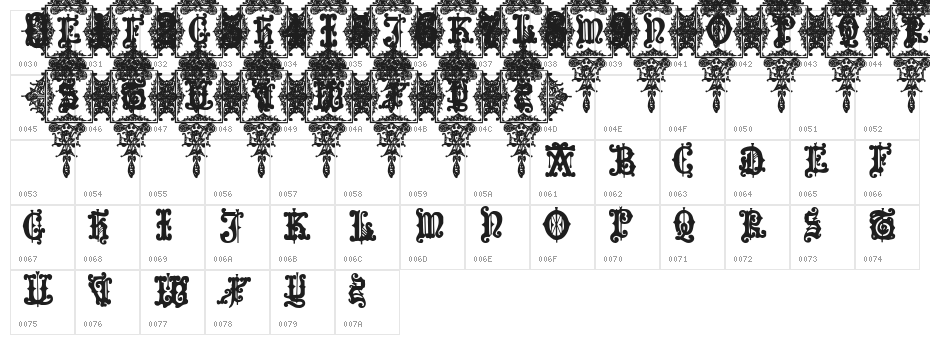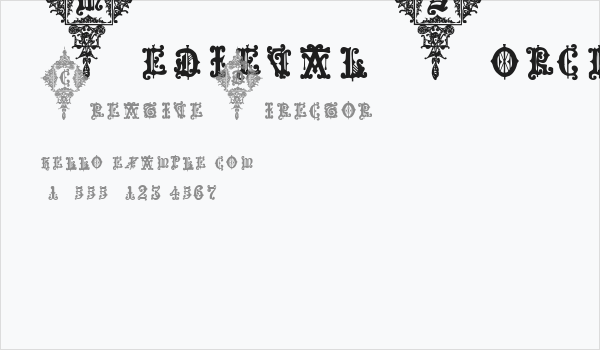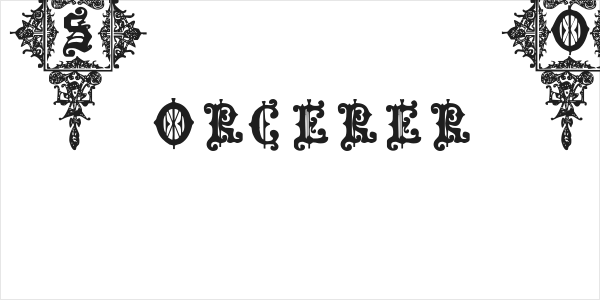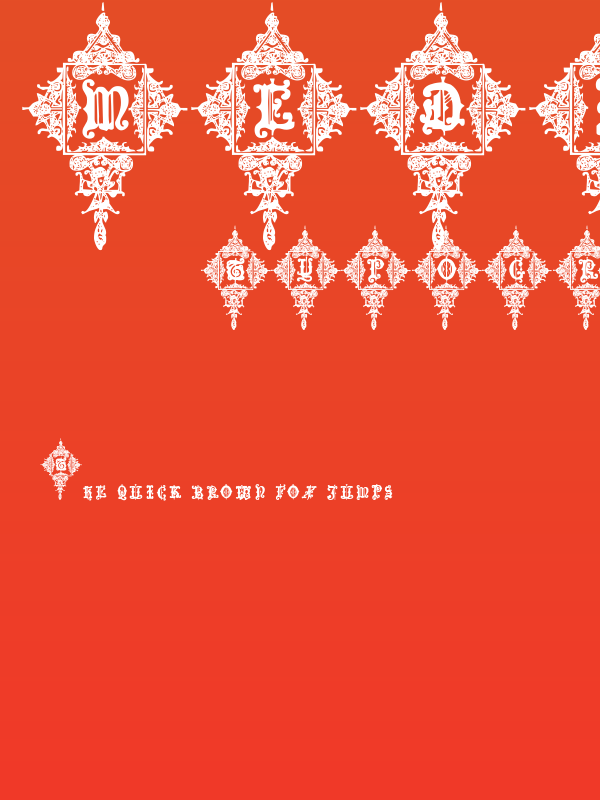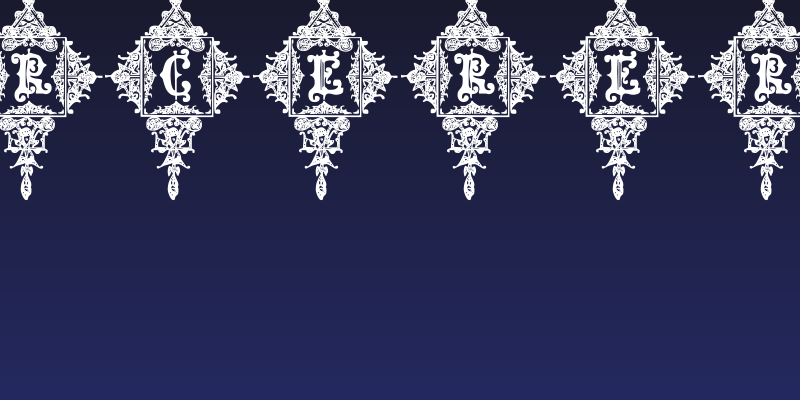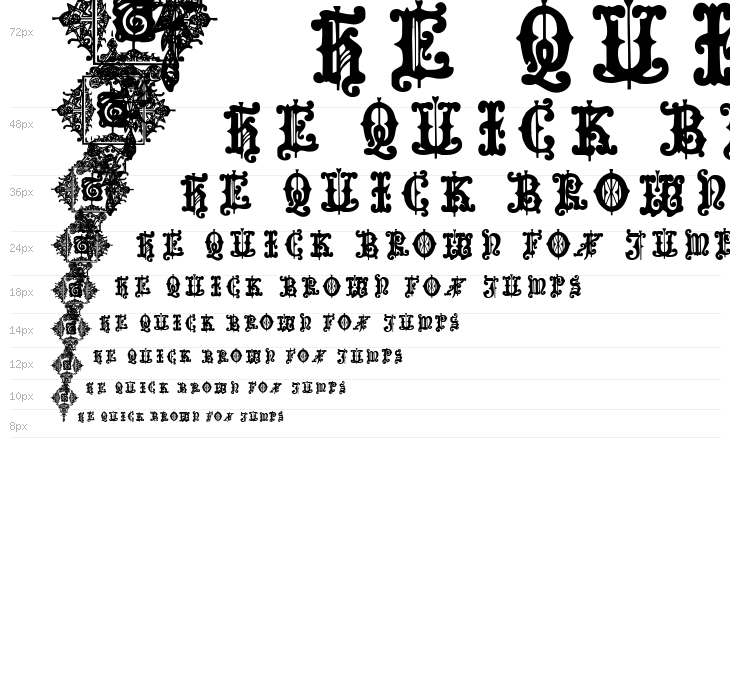
Medieval Sorcerer Ornamental Font
Medieval Sorcerer Ornamental Description
This font exudes a mystical and medieval charm, characterized by its intricate ornamental design. Each letter is adorned with elaborate flourishes and decorative elements that evoke a sense of ancient manuscripts and magical tomes. The uppercase letters are particularly striking, with their bold, gothic-inspired forms that are both dramatic and captivating. The numbers and special characters maintain this ornate style, ensuring a cohesive look across all elements. This font is perfect for projects that require a touch of fantasy or historical elegance, such as themed event invitations, book covers for fantasy novels, or branding for products with a vintage or mystical appeal.
| Overall Style | Medieval, Ornamental |
| Proposed Projects | Ideal for fantasy book covers, themed event invitations, and vintage branding. |